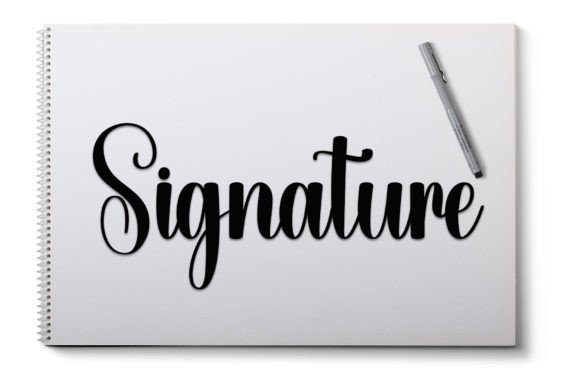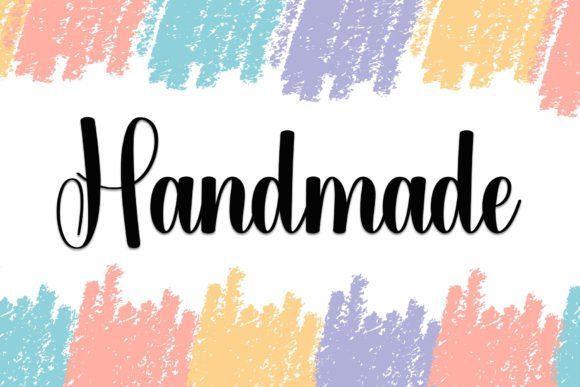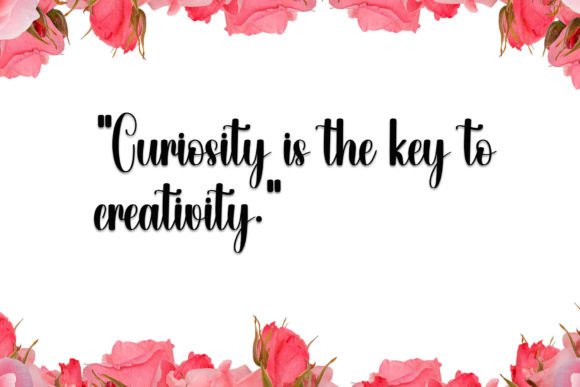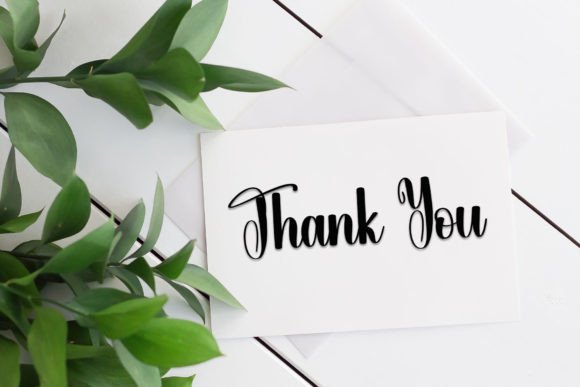
Discover the Elegance of Amsterdam Font: A Timeless Handwritten Font
Are you a designer or crafter looking for a font that exudes elegance and sophistication? Look no further than the Amsterdam Font, a beautiful handwritten font that is sure to capture your heart. With its incredibly distinct and timeless style, this font is perfect for adding a touch of refinement to your favorite projects.
What is Amsterdam Font?
Amsterdam Font is a carefully crafted handwritten font that boasts an elegant touch, making it ideal for a wide range of design applications. Its unique and distinctive style sets it apart from other fonts, ensuring that your designs stand out from the crowd. Whether you’re working on a logo, branding project, or simply want to add some personality to your digital or print materials, Amsterdam Font is the perfect choice.
Characteristics of Amsterdam Font
So, what makes Amsterdam Font so special? Here are just a few of its key characteristics:
- Elegant and Refined: Amsterdam Font features a sophisticated and elegant style that is perfect for designs that require a touch of luxury.
- Handwritten with Love: This font is carefully crafted to mimic the look and feel of handwritten text, giving it a personal and unique touch.
- Distinctive and Timeless: Amsterdam Font has a timeless quality that ensures it will remain stylish and relevant for years to come.
- Versatile: This font is suitable for a wide range of design applications, from logos and branding to digital and print materials.
Why Choose Amsterdam Font?
With so many fonts to choose from, why should you choose Amsterdam Font for your next project? Here are just a few compelling reasons:
- Add a Touch of Elegance: Amsterdam Font is the perfect way to add a touch of sophistication and elegance to your designs.
- Stand Out from the Crowd: With its unique and distinctive style, Amsterdam Font ensures that your designs will stand out from the crowd.
- Easy to Read: This font is carefully crafted to be easy to read, making it perfect for body text or headings.
How to Use Amsterdam Font in Your Designs
- Pair it with Other Fonts: Amsterdam Font pairs beautifully with other fonts, so don’t be afraid to experiment with different combinations.
- Use it for Headings and Titles: This font is perfect for headings and titles, where its elegant and refined style can really shine.
- Add a Personal Touch: Amsterdam Font is perfect for adding a personal touch to your designs, whether you’re working on a logo, branding project, or social media graphics.